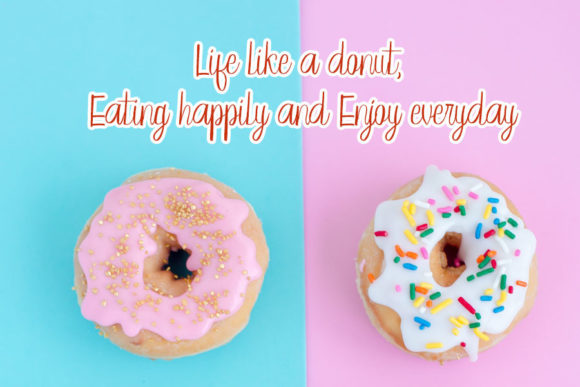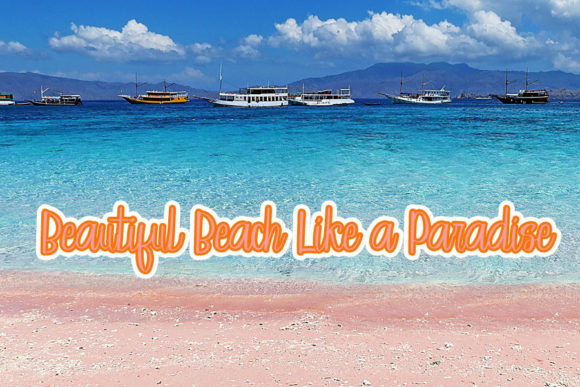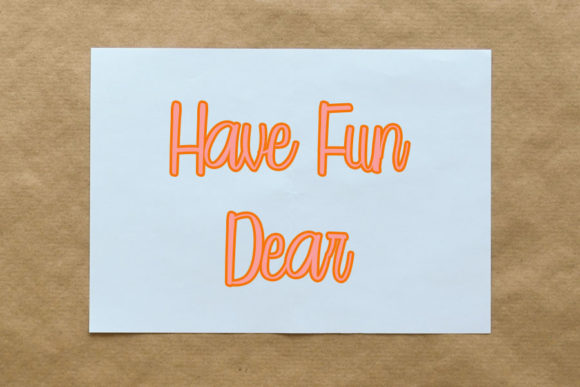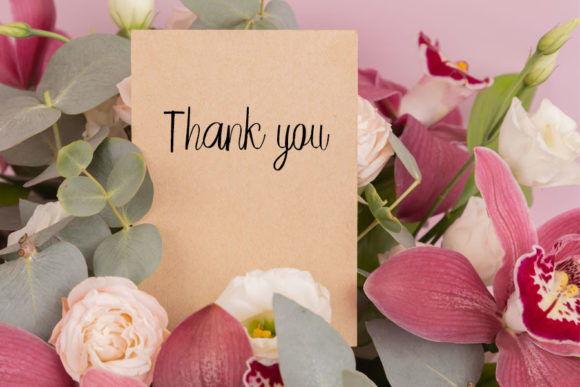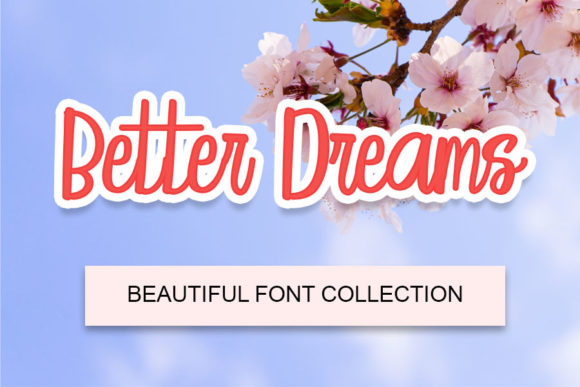
Better Dreams Font: The Perfect Choice for Romantic and Elegant Designs
Are you looking for a font that can add a touch of romance and elegance to your designs? Look no further than Better Dreams Font. This beautiful, handwritten font is perfect for creating wedding invitations, cards, and other designs that require a personal and sentimental touch.
What Makes Better Dreams Font So Special?
Better Dreams Font is a romantic and elegant handwritten font that is dainty and joyful. Its unique and flowing script makes it ideal for adding a touch of whimsy and sophistication to any design. Whether you’re a designer, crafter, or DIY enthusiast, this font is sure to become a favorite in your collection.
Characteristics of Better Dreams Font
- Romantic and Elegant: Better Dreams Font is the perfect choice for designs that require a romantic and elegant touch. Its flowing script and dainty letters make it ideal for wedding invitations, cards, and other special occasions.
- Handwritten: This font has a beautiful, handwritten feel that adds a personal touch to any design. Its unique and imperfect letters make it look like it was written with love and care.
- Dainty and Joyful: Better Dreams Font is a dainty and joyful font that is perfect for adding a touch of whimsy to your designs. Its playful and carefree feel makes it ideal for designs that require a lighthearted and romantic touch.
Uses for Better Dreams Font
Better Dreams Font is a versatile font that can be used for a variety of designs, including:
- Wedding Invitations: This font is perfect for creating beautiful and elegant wedding invitations that will set the tone for your special day.
- Cards: Better Dreams Font is ideal for creating romantic and personalized cards for special occasions, such as Valentine’s Day, anniversaries, and birthdays.
- Stationery: Add a touch of elegance and sophistication to your stationery with Better Dreams Font. This font is perfect for creating custom notebooks, journals, and planners.
- DIY Projects: This font is perfect for DIY enthusiasts who love to create handmade crafts, such as scrapbooking, paper crafting, and mixed media art.
Why Designers and Crafters Love Better Dreams Font
Designers and crafters love Better Dreams Font for its unique and romantic feel. This font is perfect for adding a personal touch to designs and creating a sense of whimsy and elegance. Here are a few reasons why designers and crafters love Better Dreams Font:
- Unique and Exclusive: Better Dreams Font is a unique and exclusive font that will set your designs apart from the rest.
- Elegant and Sophisticated: This font adds a touch of elegance and sophistication to any design, making it perfect for high-end designs and luxury brands.
- Easy to Read: Better Dreams Font is easy to read and understand, making it perfect for designs that require a clear and concise message.
Tips for Using Better Dreams Font
Here are a few tips for using Better Dreams Font in your designs:
- Use it for Headings: Better Dreams Font is perfect for headings and titles. Use it to add a touch of elegance and sophistication to your designs.
- Pair it with Other Fonts: This font pairs well with other fonts, such as sans-serif fonts and script fonts. Experiment with different font combinations to create a unique look.
- Use it for Quotes: Better Dreams Font is perfect for quotes and phrases. Use it to add a touch of romance and whimsy to your designs.
Better Dreams Font is a beautiful and elegant handwritten font that is perfect for adding a touch of romance and whimsy to your designs. Its unique and flowing script makes it ideal for wedding invitations, cards, and other special occasions. Whether you’re a designer, crafter, or DIY enthusiast, Better Dreams Font is sure to become a favorite in your collection.